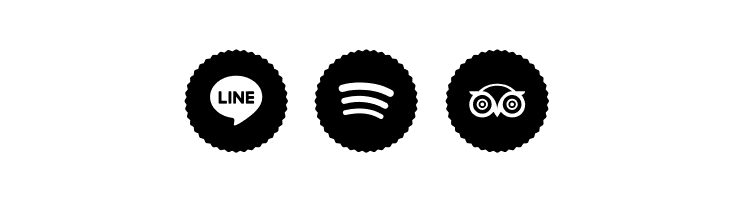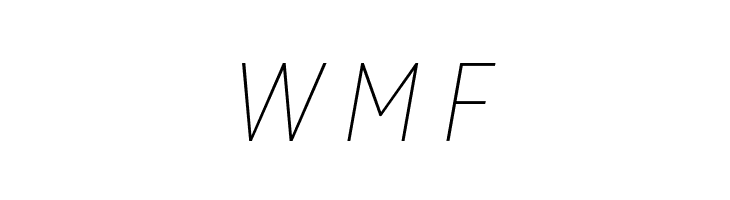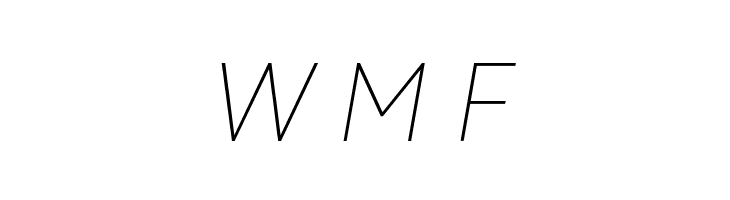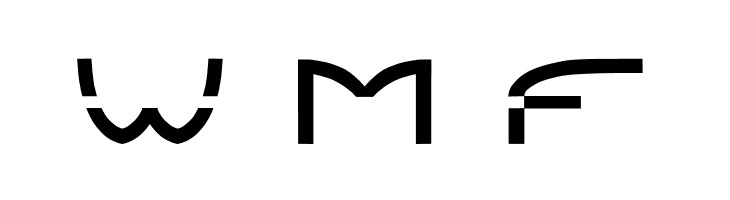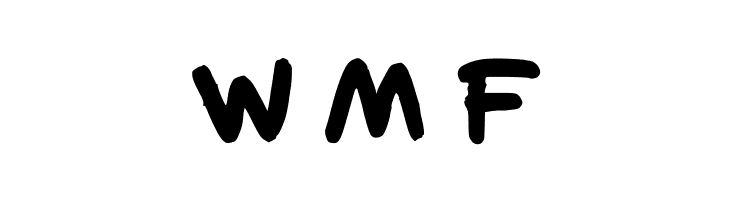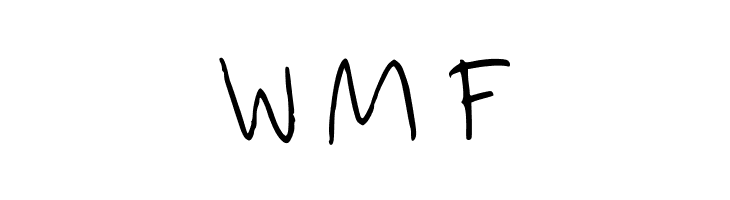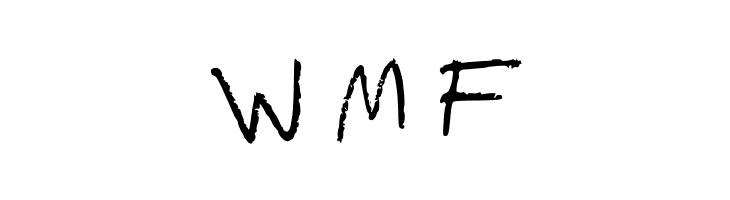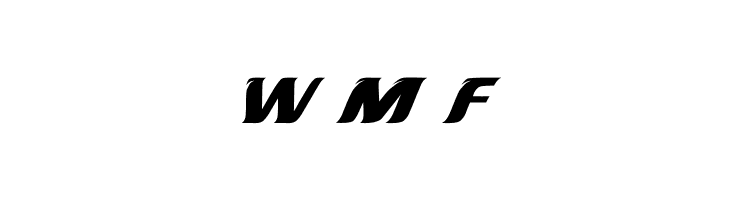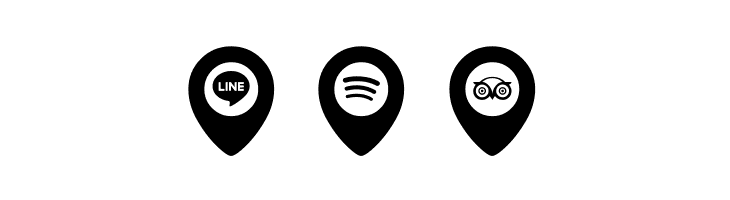
A bold, hand-drawn font with a playful, graffiti-like style.
A bold, edgy font with sharp angles and a rebellious style.
A playful serif font with a hand-drawn, comic-like style.
A futuristic, geometric font with cut-out segments and a sleek, modern appearance.
A bold, rounded, hand-drawn font with a playful and casual style.
A modern, geometric sans-serif font with uniform strokes and excellent readability.
A playful, hand-drawn script font with smooth curves and loops.
A casual, handwritten-style font with a ballpoint pen aesthetic.
A hand-drawn, pencil-like font with a sketchy, artistic style.
A bold, slanted font with a dynamic and modern style.
The image contains QR codes, not a font.
A geometric, segmented font inspired by 14-segment LCD displays.
Bold, simplified icons representing home entertainment and tech devices.
Uniform, bold, monochrome social media and web service icon set.
A bold, classic serif font with high contrast and elegant details.
A high-contrast serif font with elegant, sharp serifs and a classic style.
A geometric, monospaced font mimicking 14-segment LED displays.
A playful, rounded font with bold strokes and a friendly, approachable style.
A playful, rounded font with smooth curves and a bold, friendly appearance.
A digital-style font resembling seven-segment displays, perfect for tech-themed designs.
Minimalist circular icons of popular social media and web services.
A digital-style font resembling a 16-segment electronic display.
A bold, modern sans-serif font with clean lines and balanced proportions.
A sleek, modern, condensed thin italic font with a minimalist aesthetic.
A sleek, thin, and italic font with a modern and elegant design.